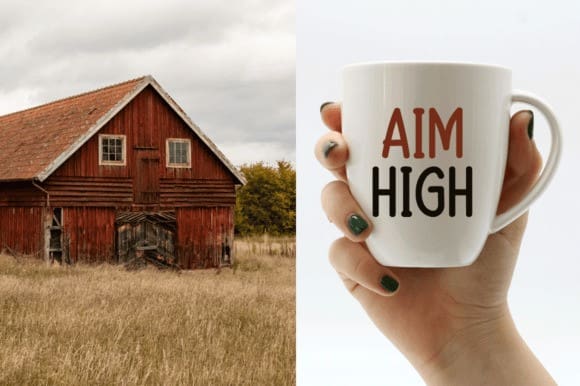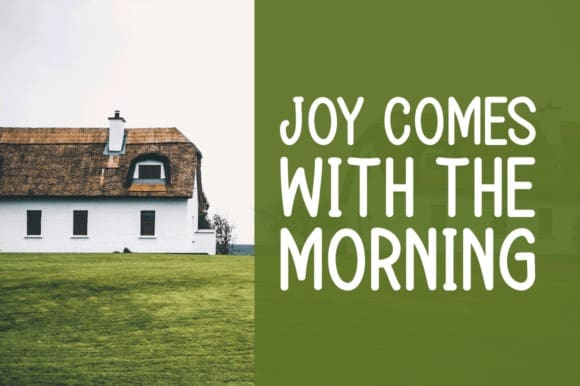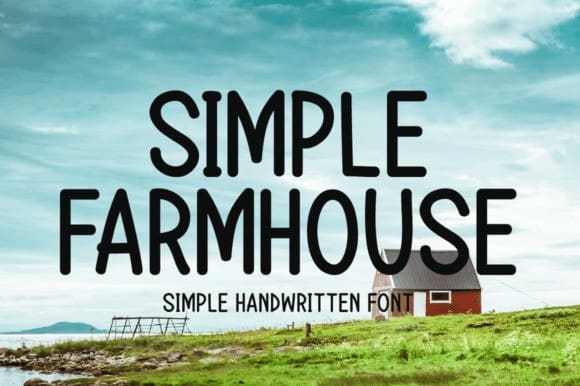
Simple Farmhouse Font
Simple Farmhouse Font is a simple and friendly display font featuring the perfect amount of trendiness. This original look will appeal to a wide range of crafty ideas, from letterheads and titles to stationery.